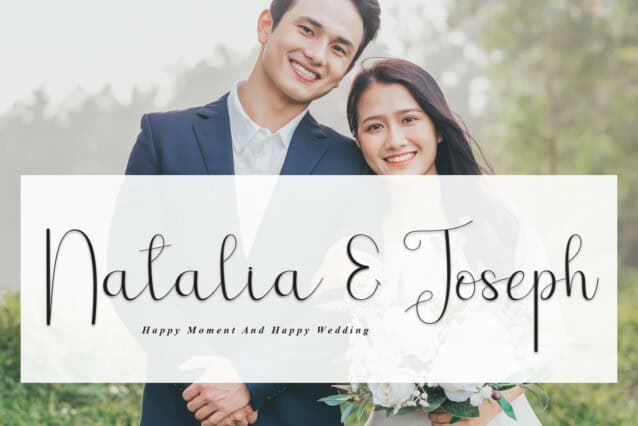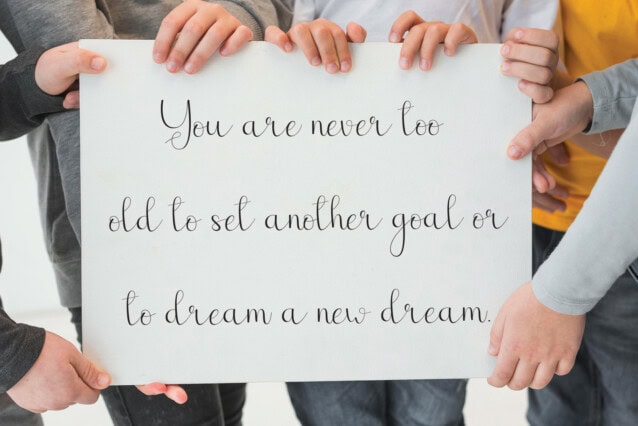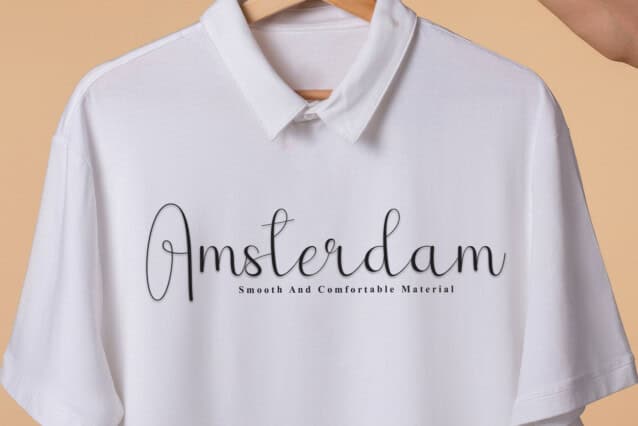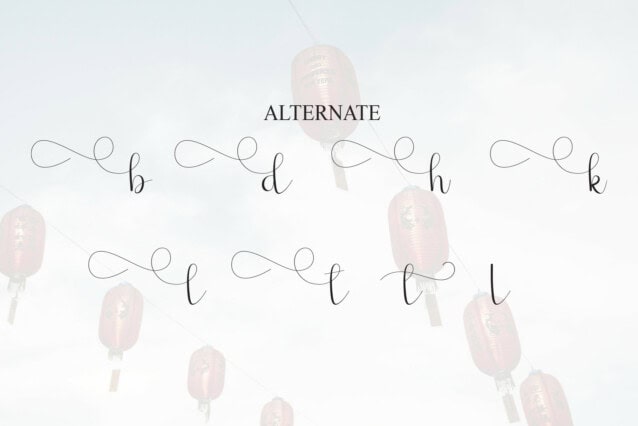
Festival Solstice Script Font is a sweet and friendly handwritten display font. Cute and fun, this font is ideal for writing wedding invitations, cards, or any other design that might need a playful touch!